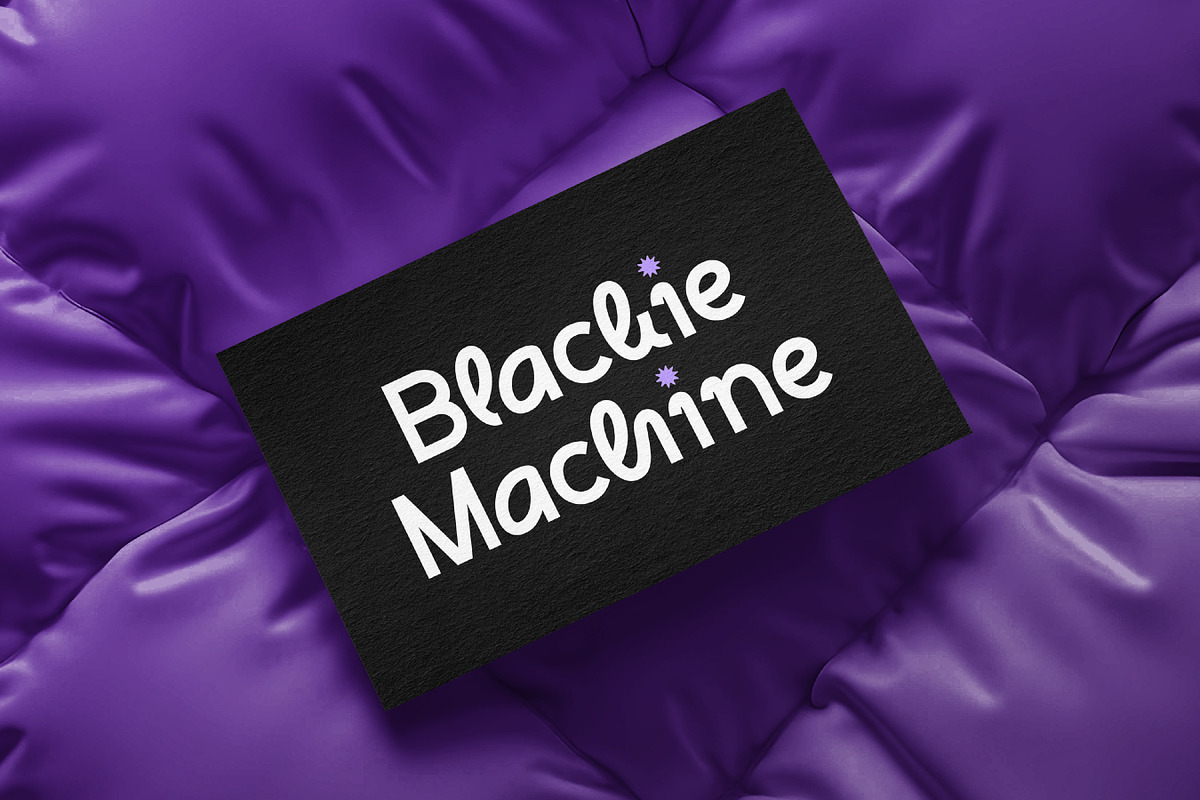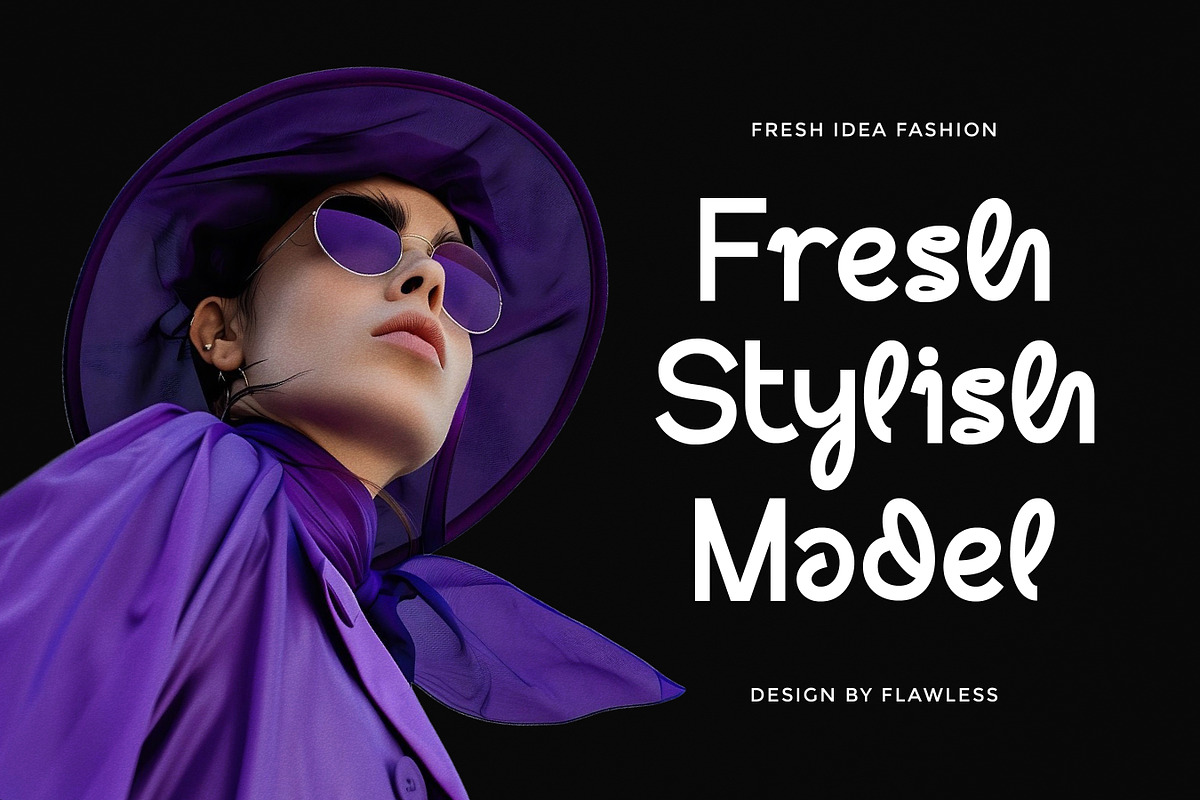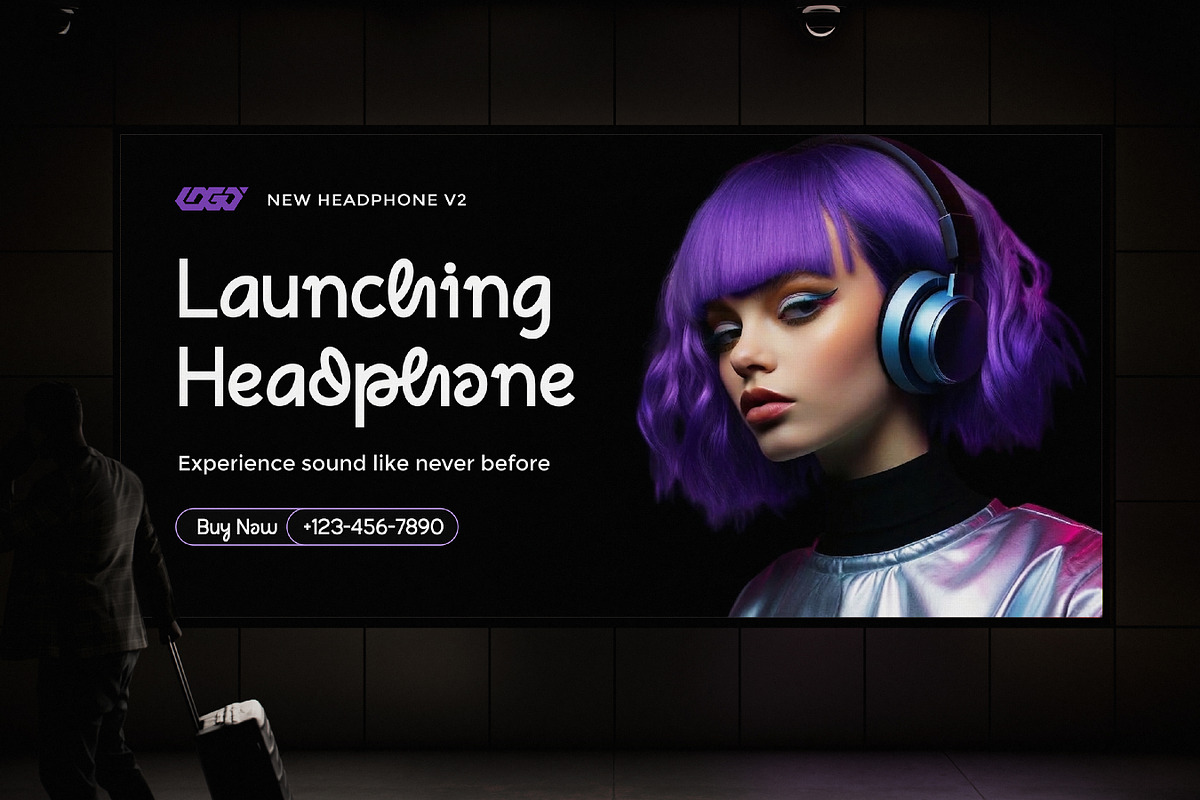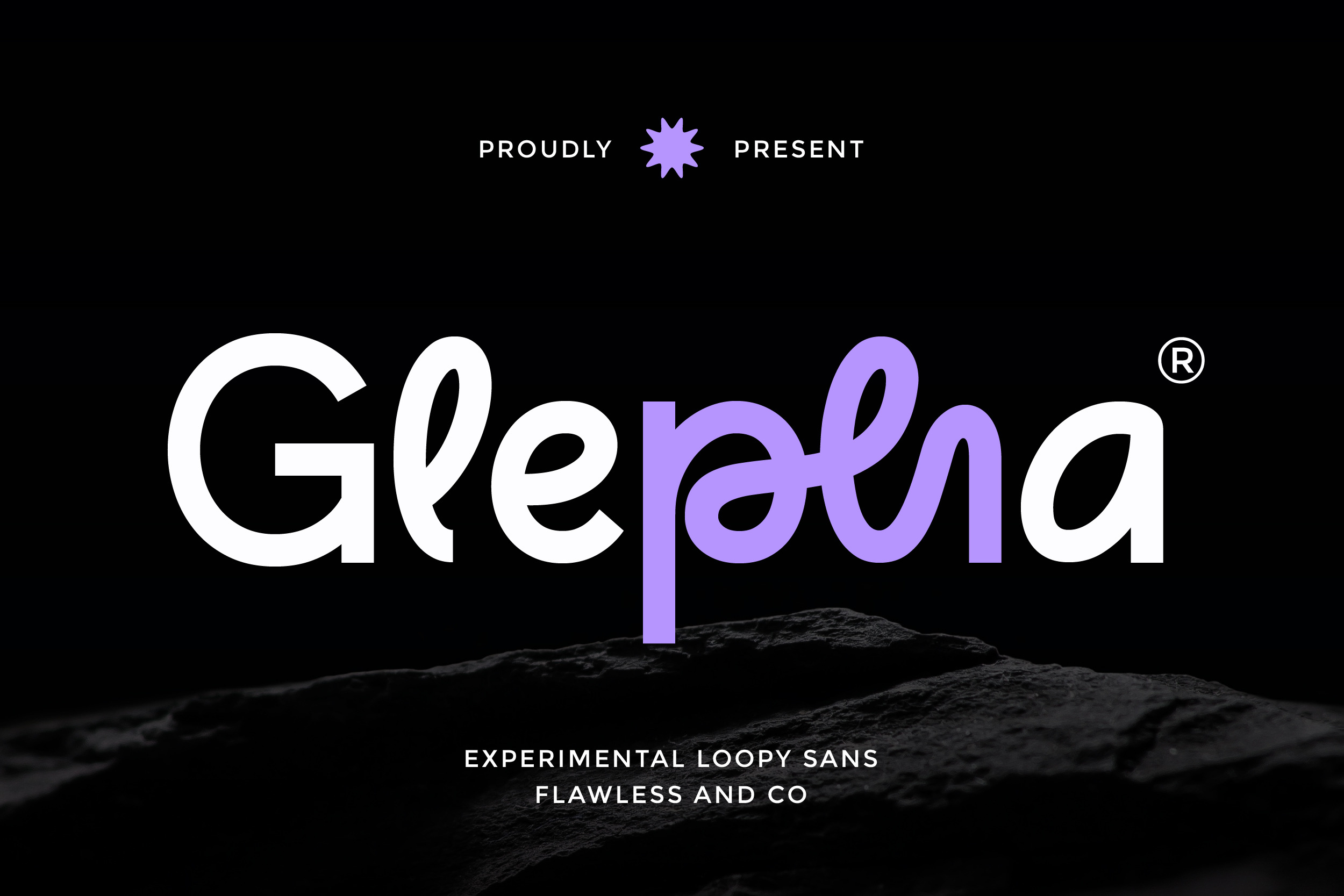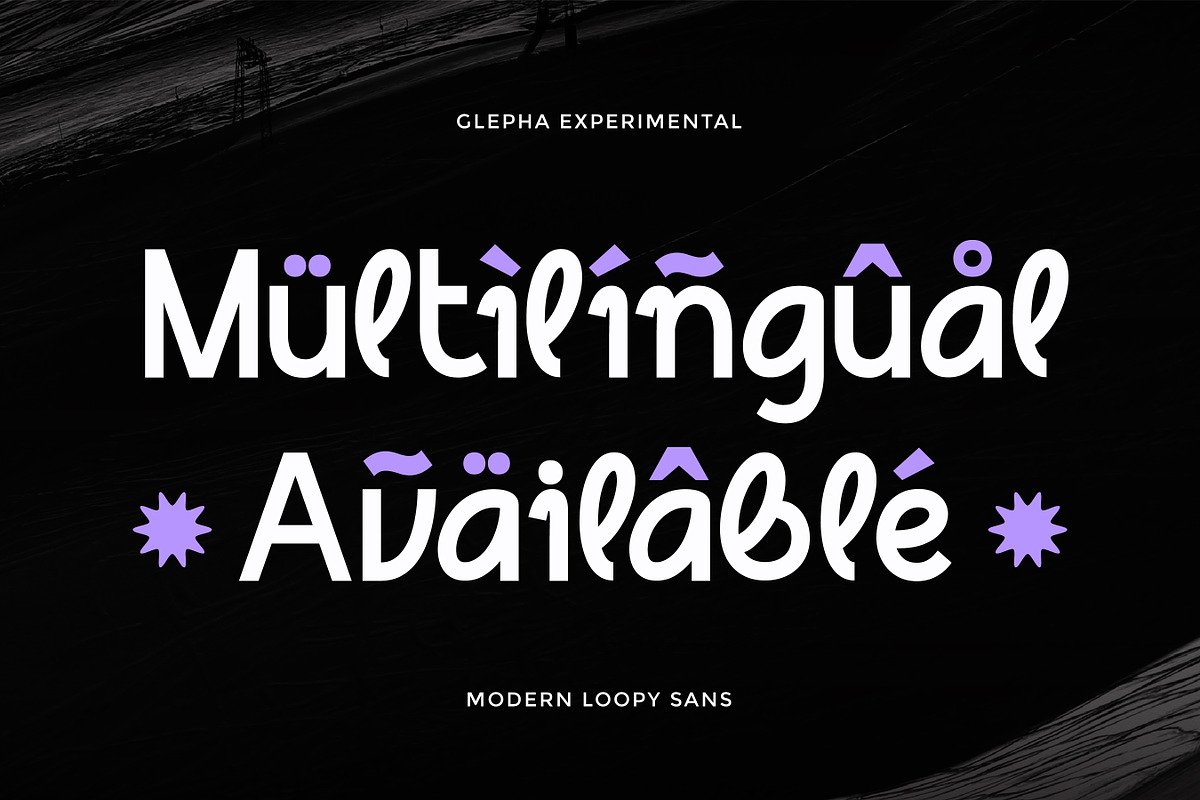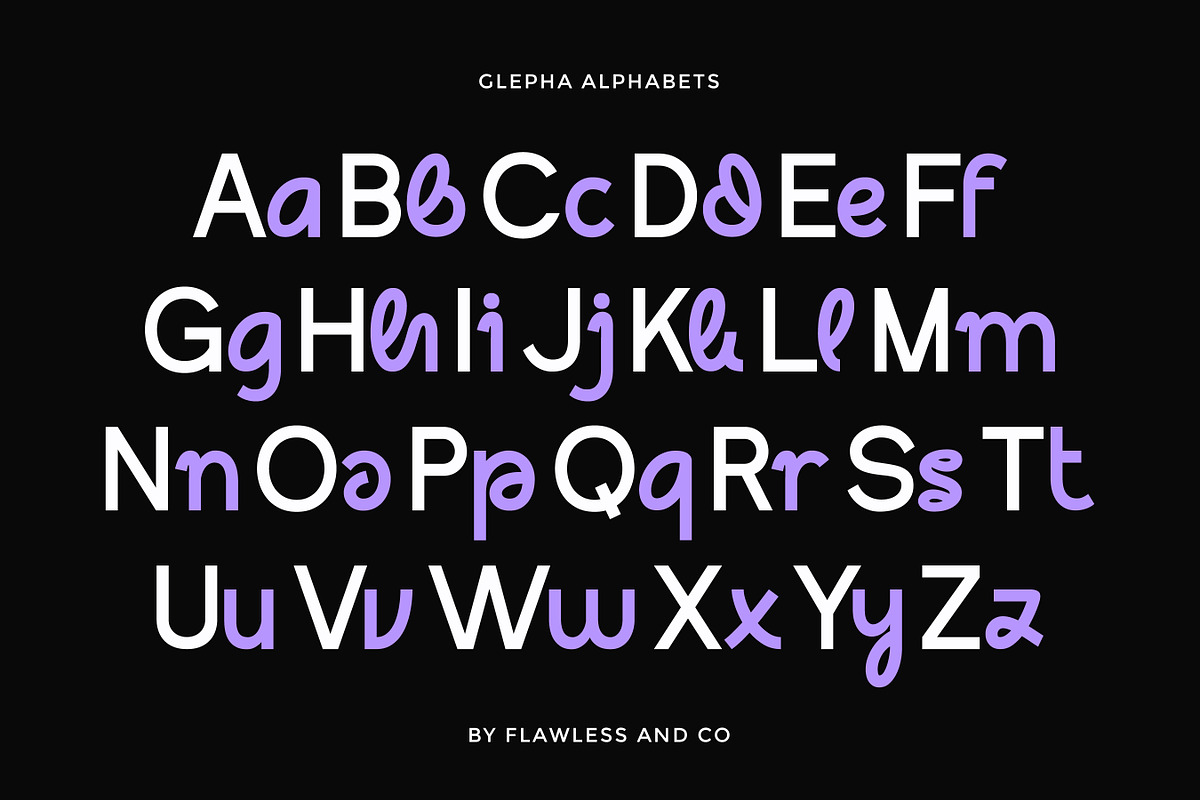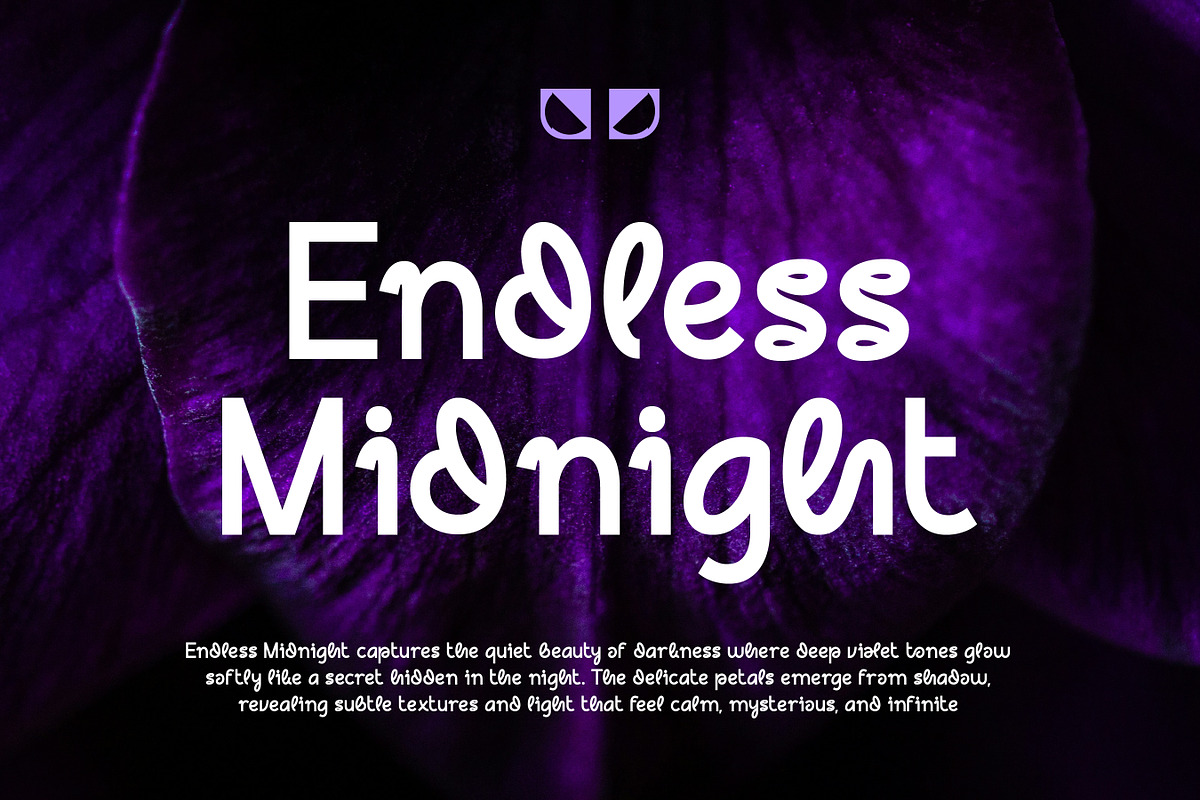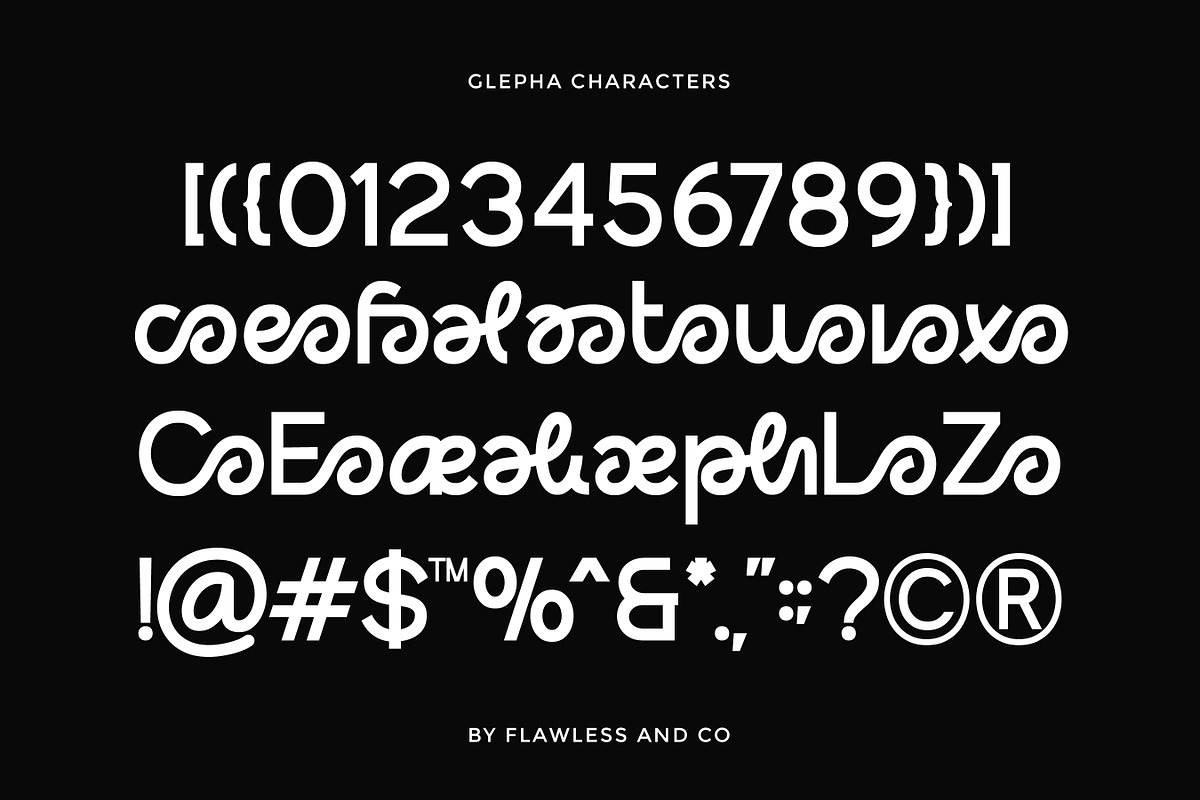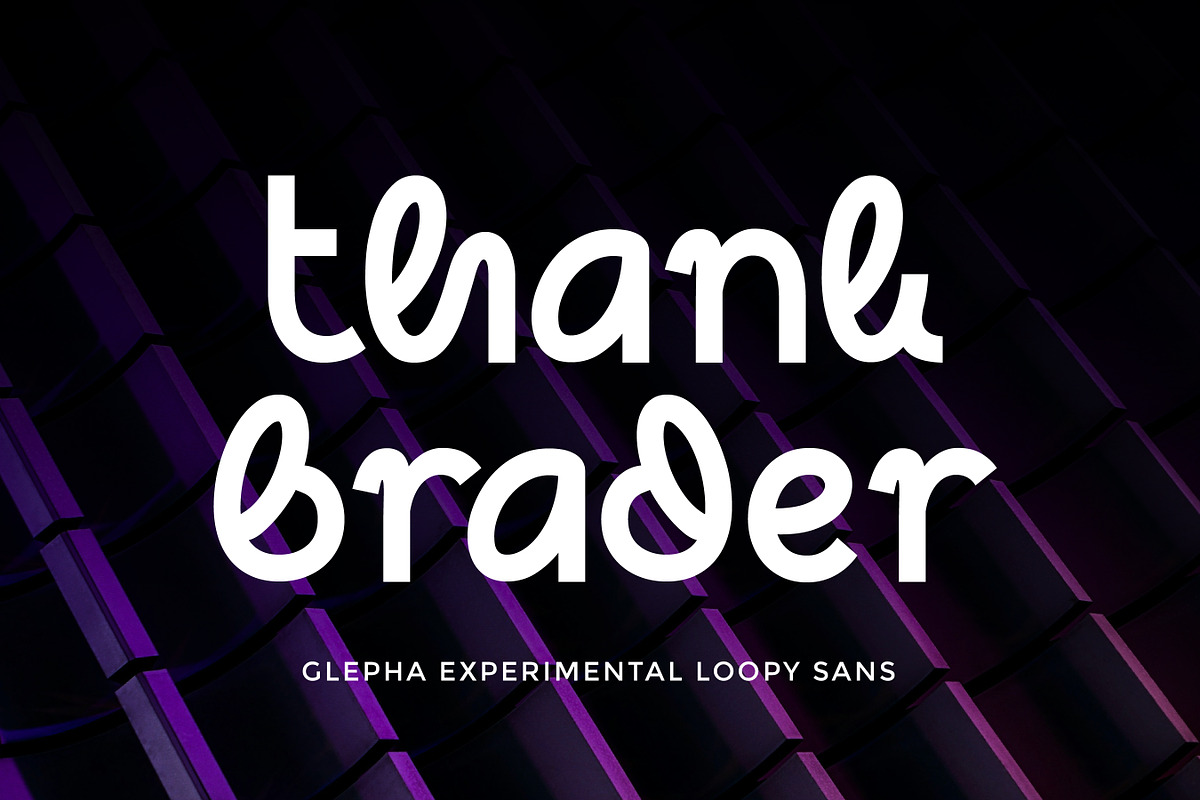
Glepha - Loopy Sans Serif Font
Glepha is a modern experimental loopy sans typeface that brings a fresh, unconventional twist to contemporary design. Defined by its smooth curves and distinctive looped forms, Glepha creates a soft yet striking visual identity that feels both playful and artistic. Its unique construction gives each letter a sense of movement, making your typography look more dynamic and expressive. This typeface is crafted to stand out in creative environments where originality matters. Glepha blends a clean sans serif foundation with imaginative details, resulting in a font that feels modern, stylish, and full of personality.
Who Should Use Glepha?
Glepha is perfect for creatives, designers, and brands looking for a distinctive and artistic typeface. It’s especially ideal for projects that demand a playful, modern, and experimental touch.
Suitable For:
- Creative branding and identity
- Artistic posters and layouts
- Music and event design
- Social media content
- Packaging and product design
- Editorial and magazine headlines
- Unique logo creation
- Modern experimental typography